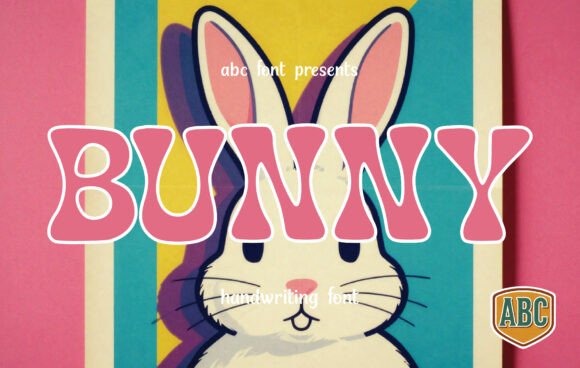
Add a Touch of Whimsy to Your Designs with the Bunny Font
Have you ever been working on a project, pouring your heart and soul into it, only to realize that something’s missing? You’re not quite sure what it is, but you know it’s not quite right. For me, that something was a font. I was designing a set of playful nursery decor materials, and I just couldn’t find the perfect typeface to bring it all together. That’s when I stumbled upon the Bunny font, and let me tell you, it was love at first sight! 💕
A Personal Review of the Bunny Font
As a designer, I’m always on the lookout for fonts that can help me bring a little extra magic to my projects. The Bunny font did not disappoint. Here’s what I love about it:
• ✨ Playful, bubbly letterforms that are sure to bring a smile to anyone’s face
• ✅ Organic strokes that give it a hand-sketched feel
• 💖 Soft, rounded edges that make it perfect for children’s materials or family-oriented designs
• 🎉 Excellent for creative layering, allowing you to build complex designs with ease
• 🤔 Some characters may appear a bit cramped at smaller font sizes, so be sure to adjust the tracking accordingly
• ⚠️ Limited support for non-English characters, so make sure to check the font’s specs before using it for multilingual projects
The Story Behind the Bunny Font
The Bunny font was designed by the talented team at abc font, who aimed to create a typeface that would evoke warmth and joy. Inspired by childhood memories of playful nursery rhymes and colorful illustrations, the Bunny font was born. With its bold, bubbly letterforms and organic strokes, it’s no wonder this font has become a favorite among designers and crafters alike.
Q: What type of projects is the Bunny font best suited for? A: The Bunny font is perfect for children’s educational materials, playful nursery decor, and vibrant social media headers.
Q: Is the Bunny font available in different languages? A: The Bunny font has limited support for non-English characters, so it’s best to check the font’s specs before using it for multilingual projects.